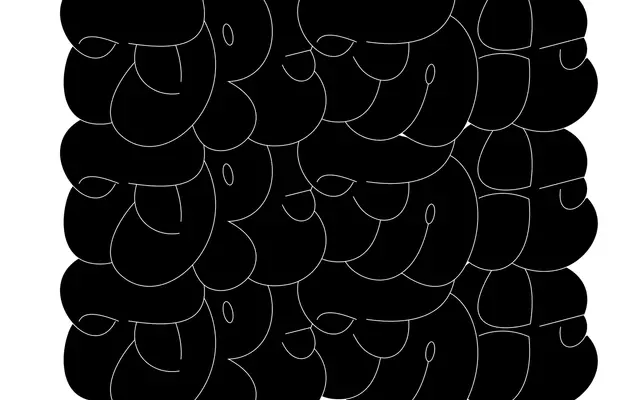
Custom + Commissioned Lettering
A bespoke lettering service from PS Type Lab covering logotypes, headlines, murals and magazine covers across a range of styles.
Rather than a retail typeface, this is a commissioned lettering offering from PS Type Lab, with work also shown at pprwrkstudio.com. The service covers a broad stylistic range, from logotypes and editorial headlines to large-format murals, adapting to whatever approach best suits a given brief. Intended for projects where an off-the-shelf font cannot provide the specificity or character required.
This is a bespoke lettering service rather than a retail typeface; categorised as display given its use in logotypes, headlines and editorial contexts.